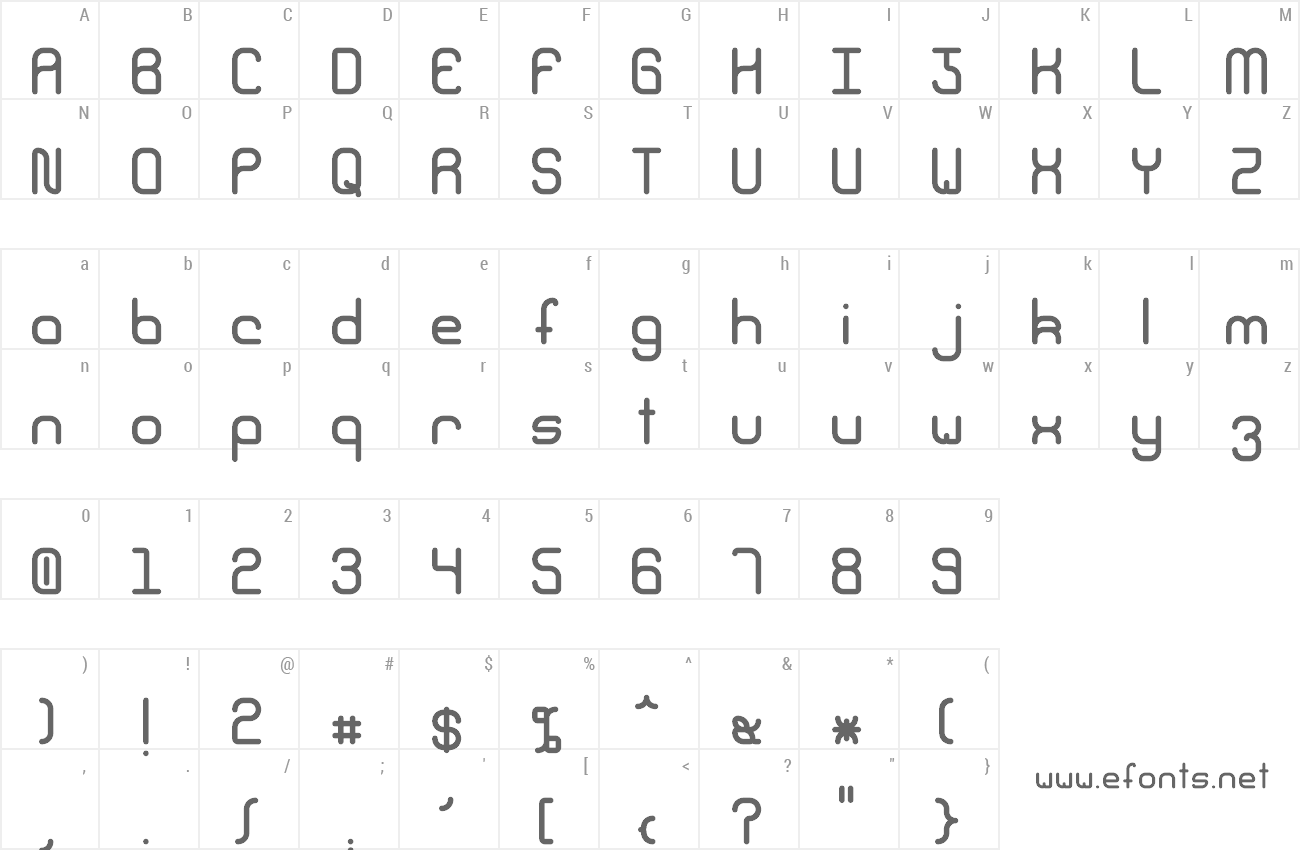
| Font name: | Climpse |
| Author: | Pierre-Henri Ramboz |
| Note by Pierre-Henri Ramboz | |
Climpse is a title & text font aiming to display texts in a light and fluid way on printed media. It may be used on digital design but might be hard to use at small size. This font is free for personal use and should not be included of featured in any comercial design or product without the author's explicit and written conscent. |